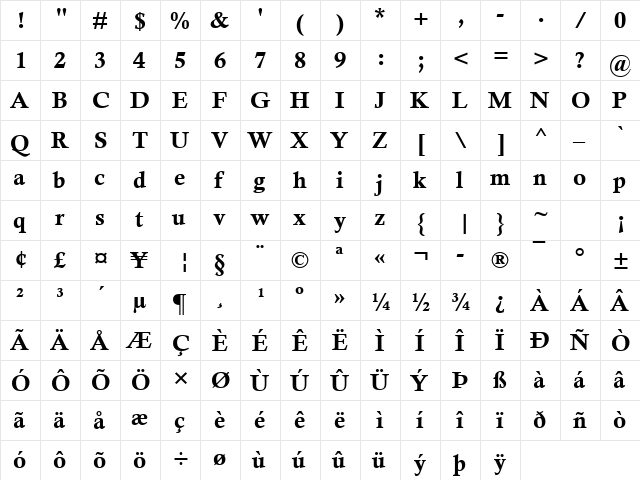
Calisto MT Bold
Design Context for Calisto MT Typeface
Calisto MT is a composed and adaptable typeface that performs quietly and consistently across a wide range of design contexts. The heavy weight commands attention and anchors typographic hierarchies.